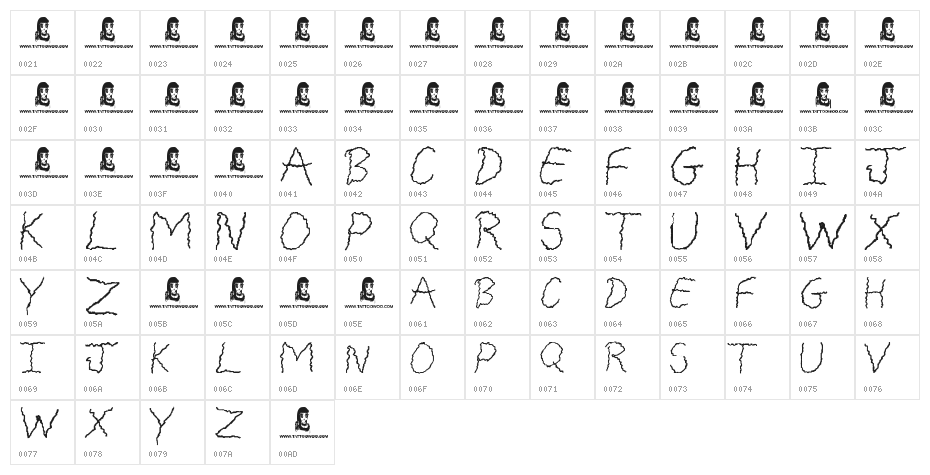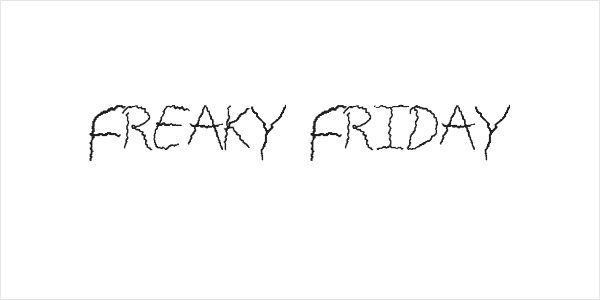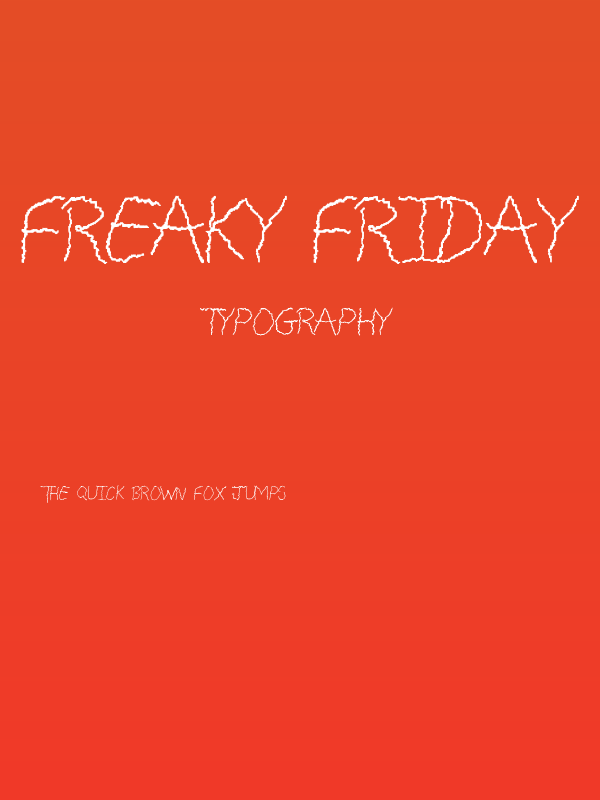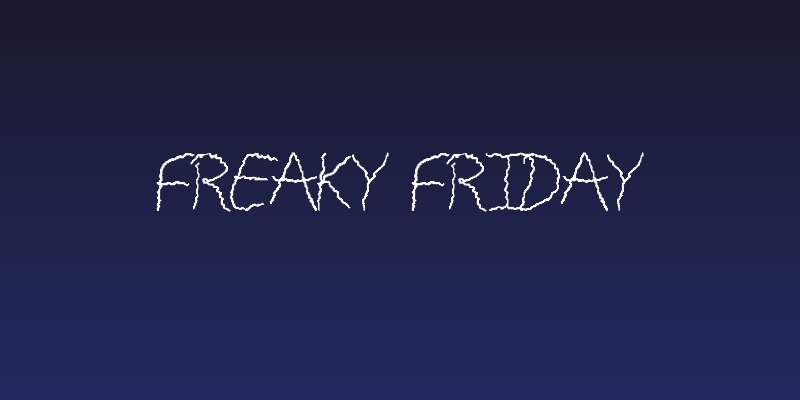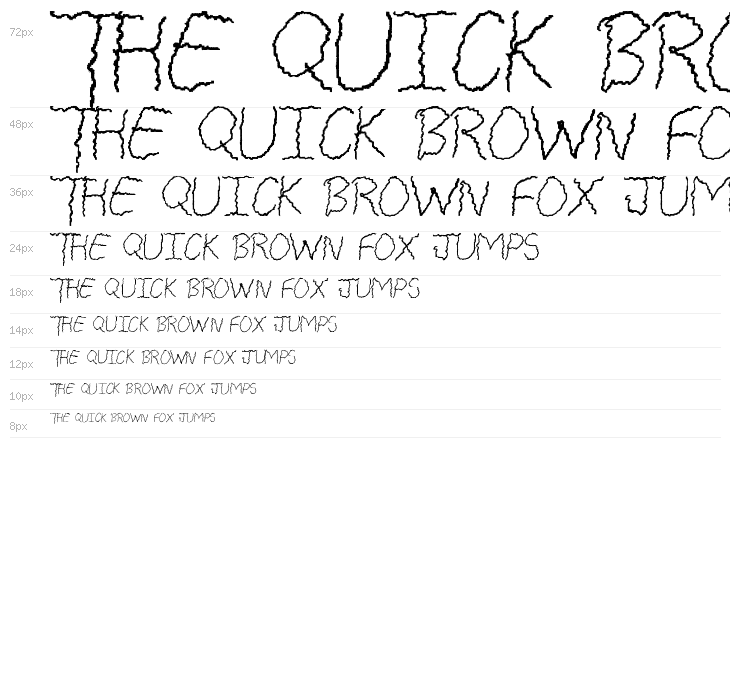
Freaky Friday Font
| Caso d'uso | Headlines, Artistic compositions, Posters |
| Progetti proposti | Ideal for horror-themed posters, edgy album covers, or unique branding projects. |